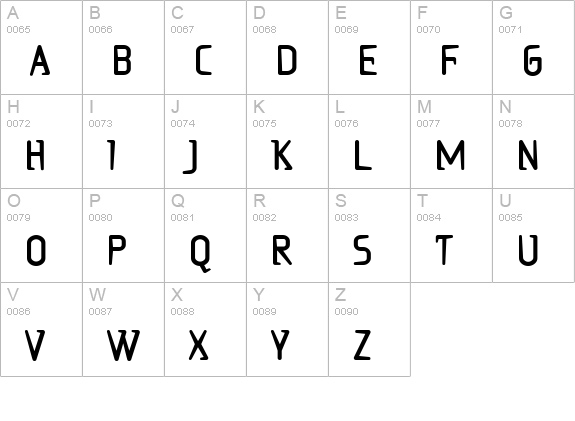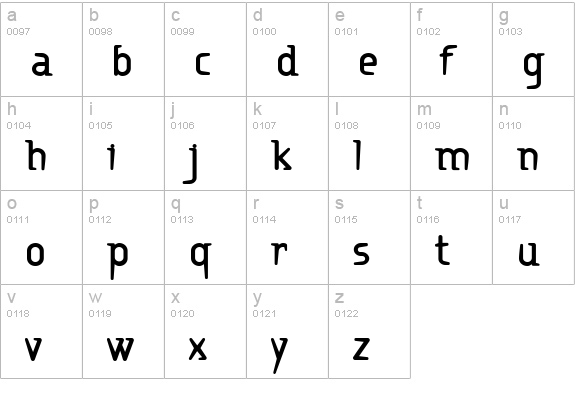
Ritalin ExtraBold is an extra-heavy, attention-grabbing variant in the Ritalin typeface family \xE2\x80\x94 well suited to high-impact headlines, posters, and bold branding.
Ritalin ExtraBold is a bold and impactful font that commands attention with its strong and assertive design. Perfect for making a statement or emphasizing key points, this font exudes confidence and power. Its thick strokes and sharp angles give it a modern and dynamic feel, making it ideal for headlines, posters, and branding materials. What sets Ritalin ExtraBold apart is that it is not only visually striking but also easily accessible. This versatile font is freely available to download at FontsMarket.com, allowing designers and creatives to effortlessly incorporate it into their projects without any cost barriers. With its bold presence and user-friendly availability, Ritalin ExtraBold is a must-have in any designer's toolkit.